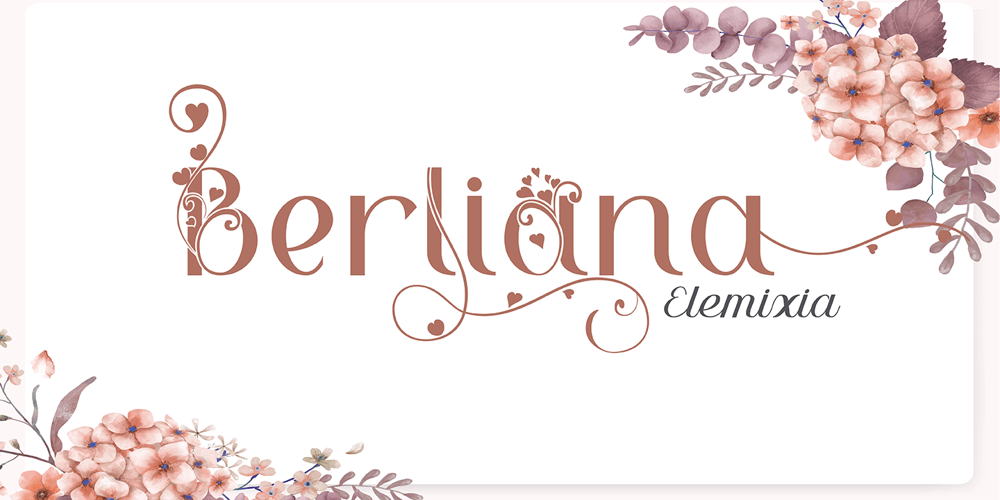
Berliana Elemixia
Berliana Elemixia font
Berliana Elemixia Font Family was designed by Riska Kurniawan and published by BlackLotus. Berliana Elemixia contains 4 styles and family package options. Berliana Elemixia is a type of display font with nuances of beauty, class, freshness, and softness that best suits your design needs. This font is ideal for headlines and brand identities. Berliana Elemixia also includes a script version, a bold script, and an ExtraBold script. This font is great when you combine your display and script fonts. This font also have interesting alternate features.